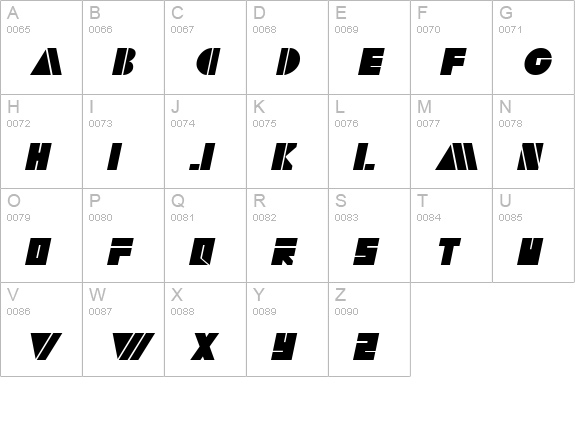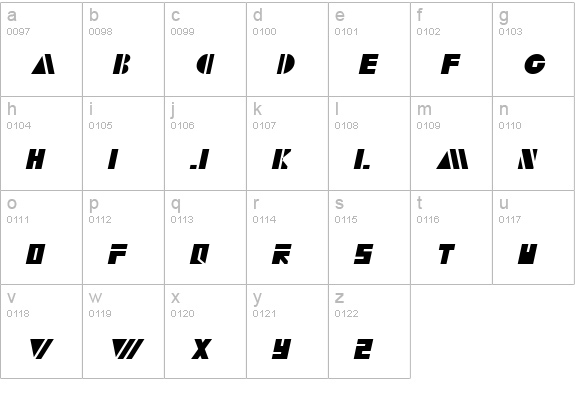
RialtoSCapsSSK Italic Font Details
RialtoSCapsSSK Italic is a distinctive, italic variant in the RialtoSCapsSSK typeface family \xE2\x80\x94 well suited to design and typography projects.
RialtoSCapsSSK Italic is a modern and stylish font that exudes elegance and sophistication. Its sleek and slanted design adds a touch of dynamism to any text or design project. Perfect for headings, logos, and branding materials, this font is sure to make a statement. The italicized form of RialtoSCapsSSK adds a sense of drama and flair, making it perfect for creating eye-catching designs. Whether you're designing a poster for a concert or creating a stylish logo for a high-end fashion brand, this font will elevate your design to new heights. The clean and crisp lines of RialtoSCapsSSK Italic make it highly legible, ensuring that your message is conveyed with clarity. Its versatility allows it to be used in a wide range of design projects, from print materials to websites. Best of all, RialtoSCapsSSK Italic is available for free download at FontsMarket.com. This means that you can bring this stunning font into your design arsenal without breaking the bank. Simply head over to FontsMarket.com and download this font to start adding a touch of sophistication to your designs.